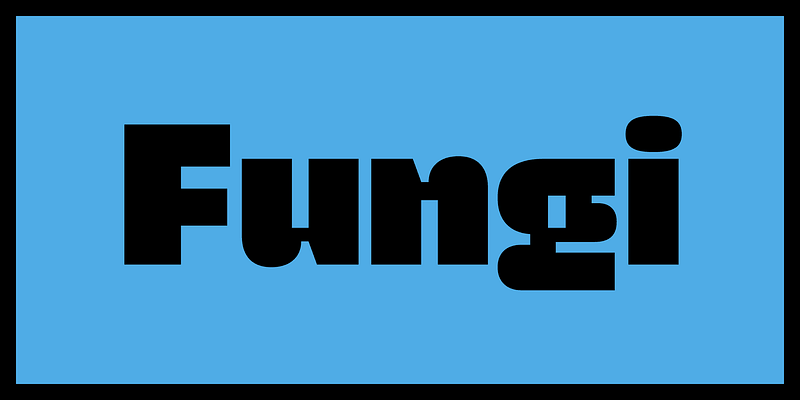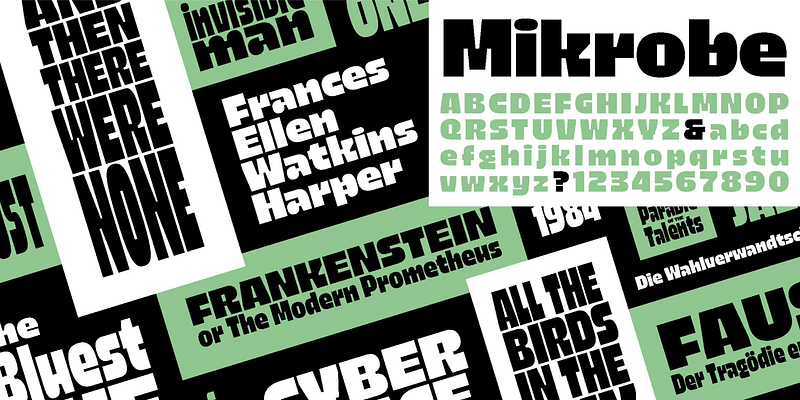
Mikrobe is a ruthless geometric display font family with a variable width axis, intended for the use on book covers. Even though Mikrobe’s temper is quite pitilessly monstrous, it is at the same time generously flexible and light-hearted. Modular elements and square counters make it easy to expand and compress.